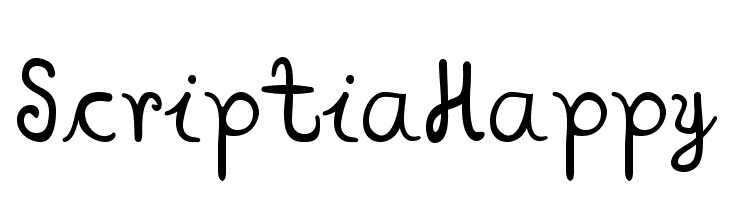
A playful, handwritten font with smooth, rounded strokes and a casual feel.
An elegant and flowing script font with classic, cursive styling.
A flowing, cursive font with elegant, connected letters and consistent stroke width.
A fluid, cursive script font with interconnected strokes and a handwritten feel.
A playful and whimsical font with curly, flowing letterforms and a lively appearance.